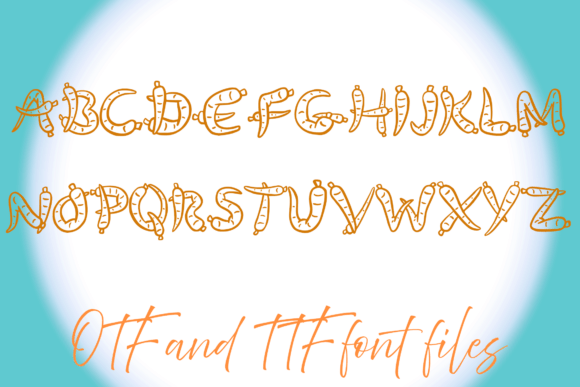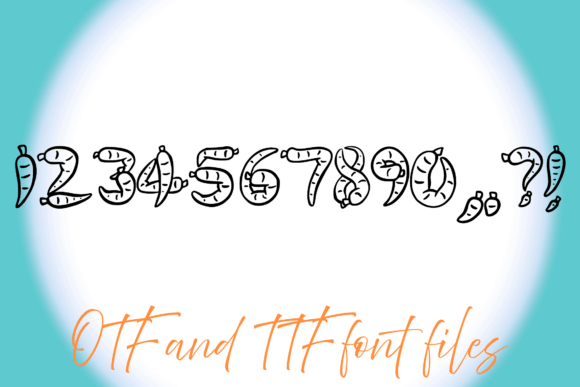
Carrot Font
Carrot Font is a quirky, vegetable-themed display font that’s bursting with playful personality. Each character is crafted to resemble a juicy carrot, making it perfect for kids’ projects, farm-to-table branding, gardening blogs, food packaging, or any design that needs a splash of organic charm and whimsy. Great for fun titles, logos, and educational materials!